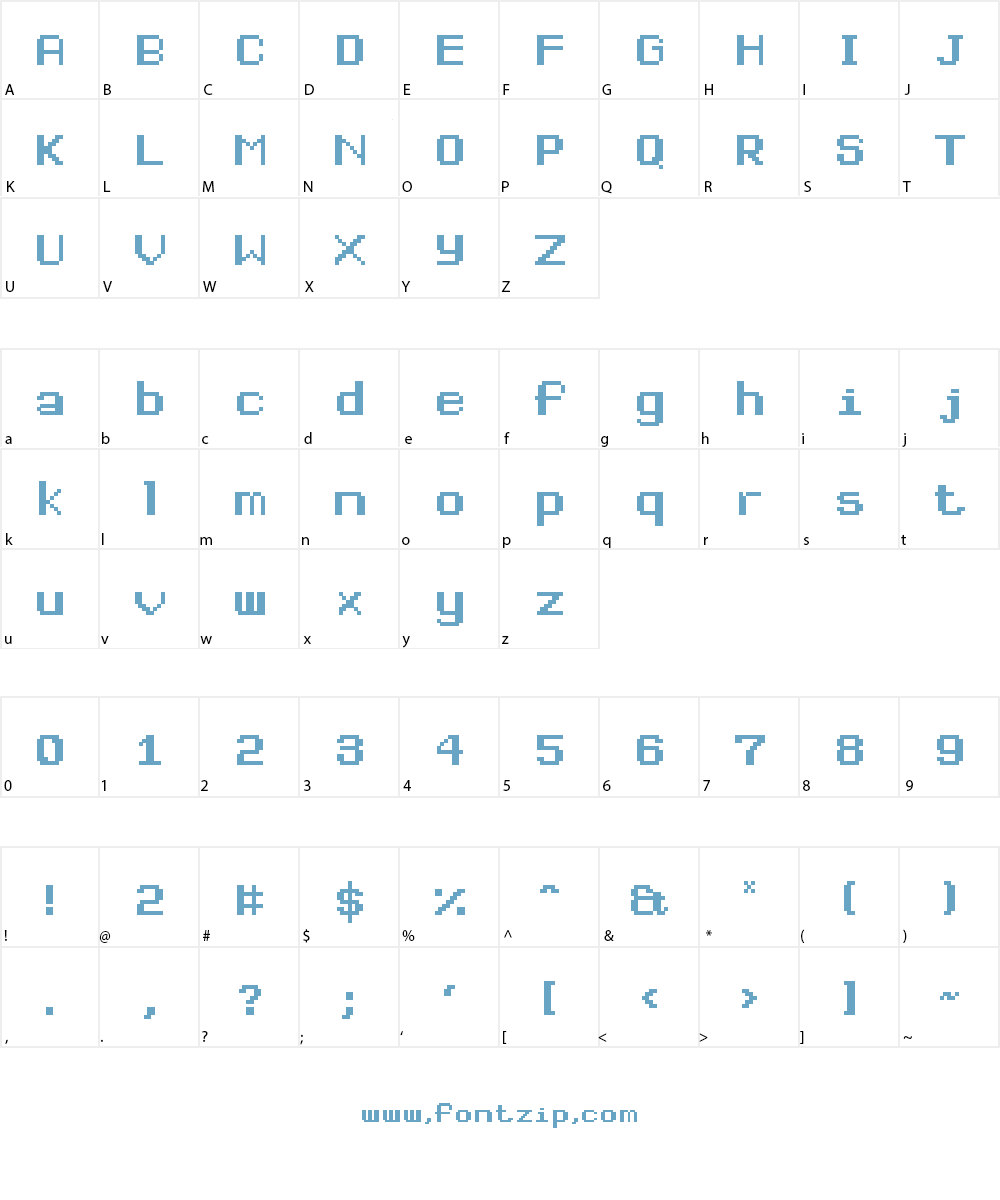
Earl's Revenge would have been the first, and so far, the only bitmap font of the foundry to be named after the SpongeBob SquarePants soundtrack under the exact same name.